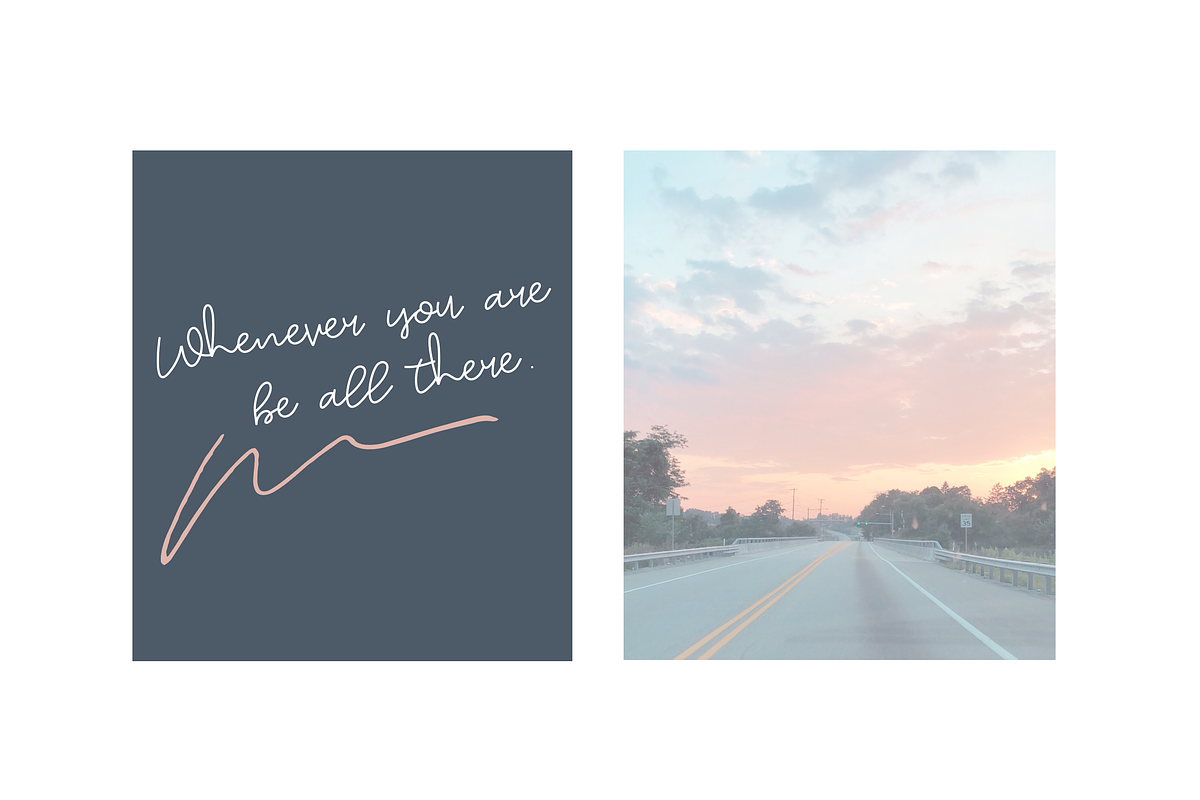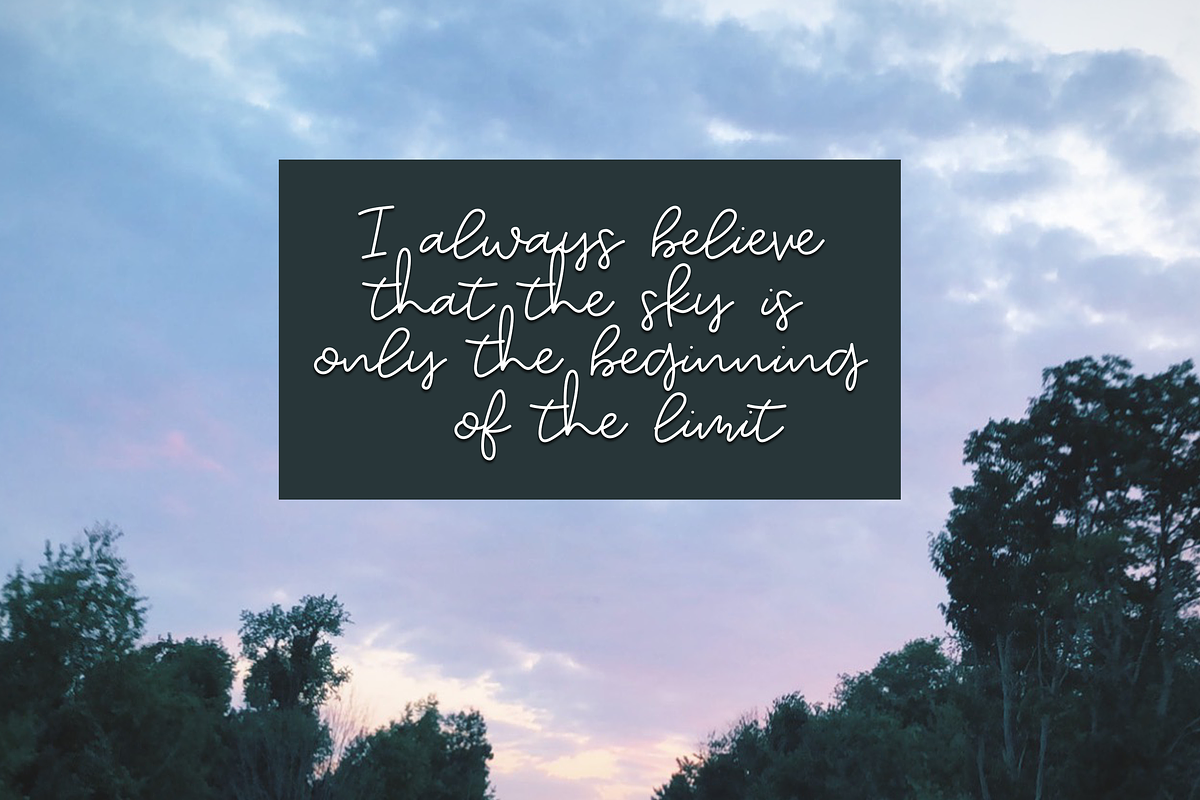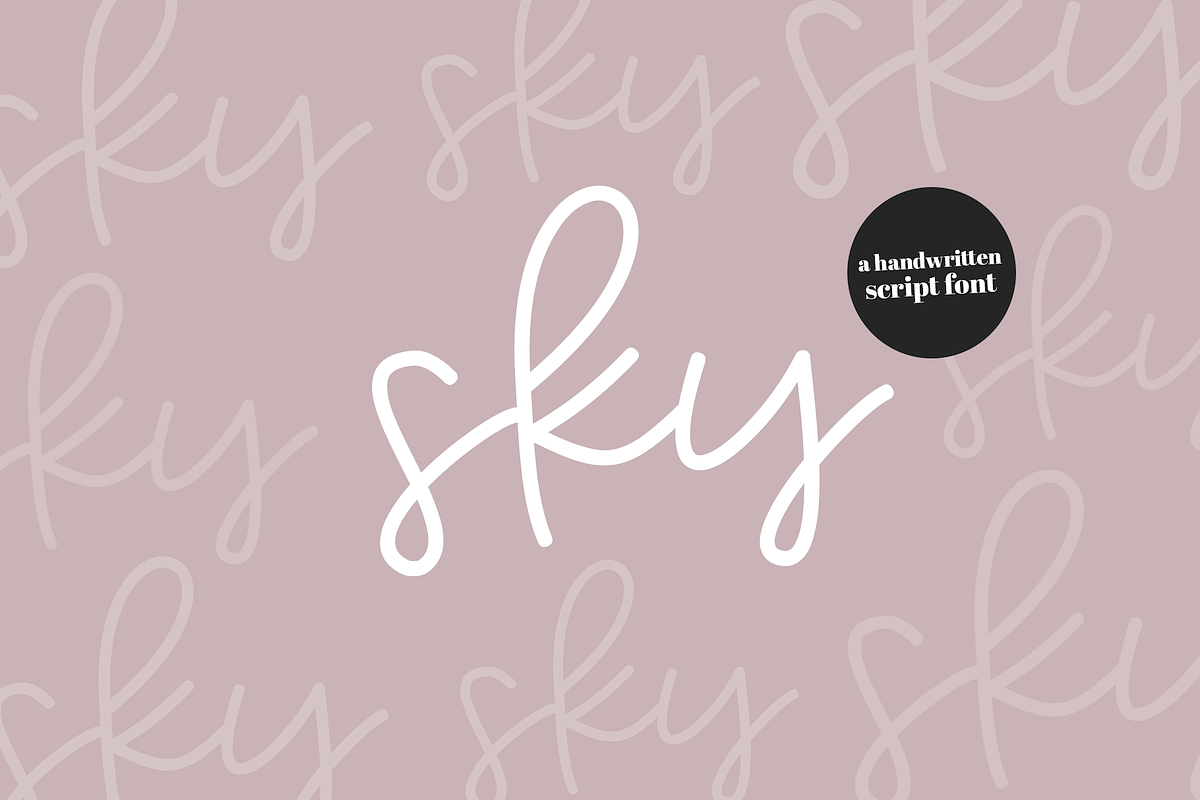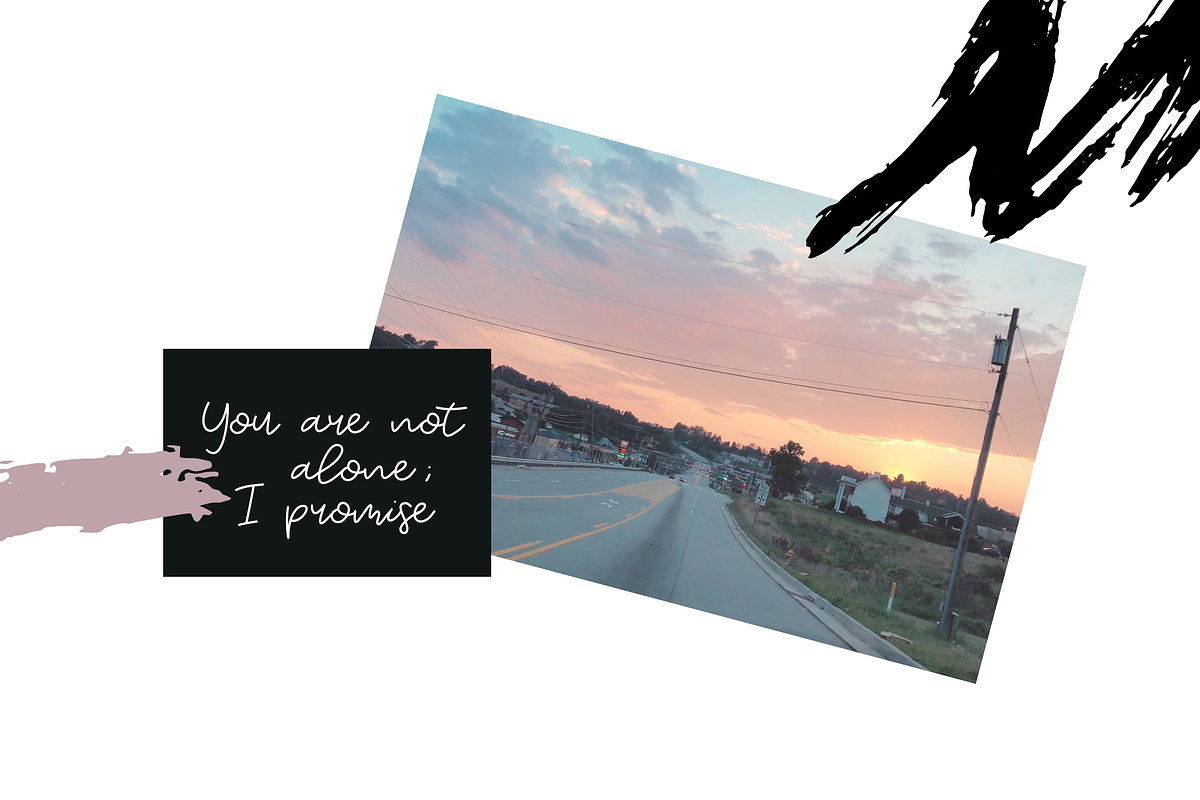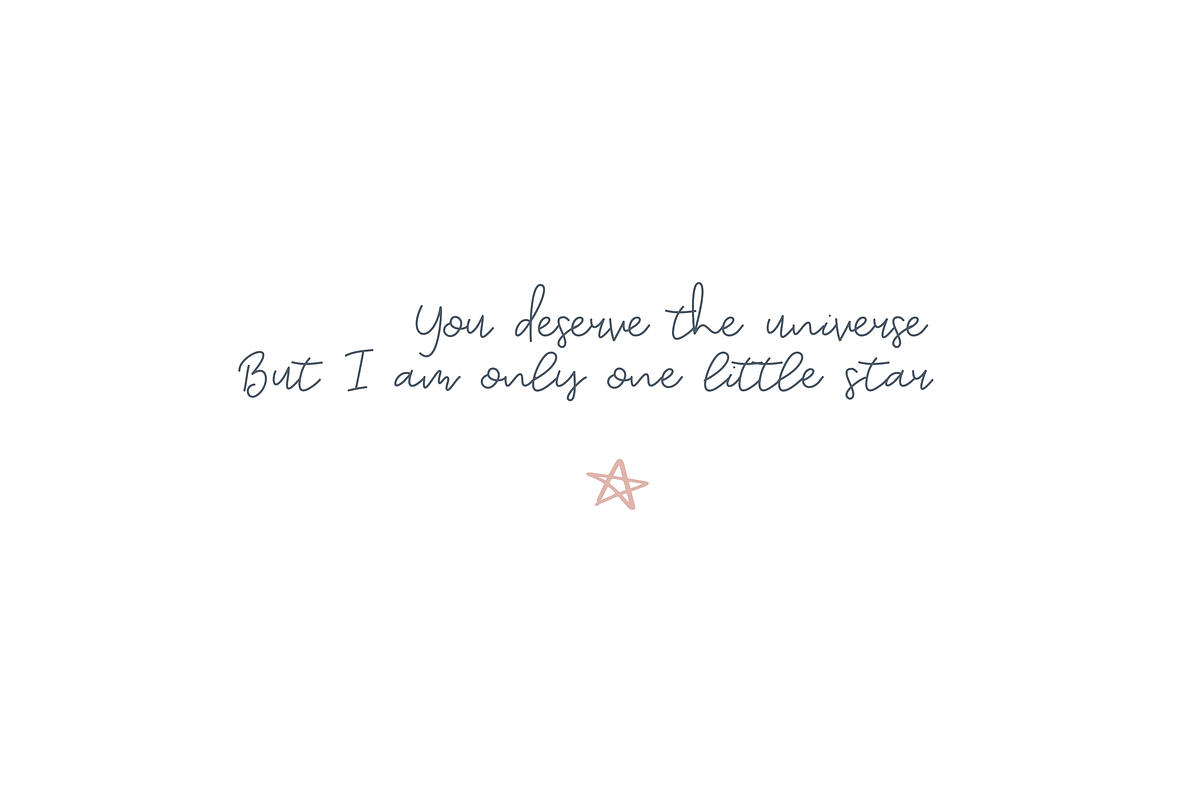
Sky - A Pretty Script Font
Sky is a pretty handwritten script. The letters are elegant, yet modern!
This font is perfect for quotes, headings, blogs, logos, invitations and more!